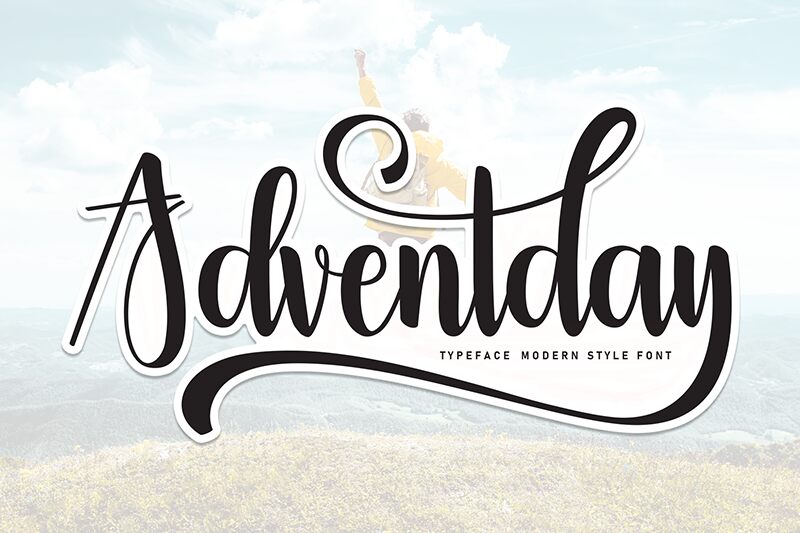
Adventday font designed by Scratchones is a free script font that seamlessly balances sophistication with engagement. Combining sleek, modern elegance with a dynamic flow, it carries an expressive and stylish presence. Its contemporary and ornamental design captures artistic flair with each letter, portraying a subtle yet impactful energy. Ideal for projects demanding a refined touch, Adventday offers a graceful and aesthetic appeal.
With its artistic elegance, this font is suitable for branding and visual identity, digital marketing graphics, social media posts, web and mobile applications, packaging, business cards, posters and flyers, book or magazine covers, apparel design, and invitations and greeting cards. Combining sophistication with a contemporary flair, this font elevates the professional design journey.